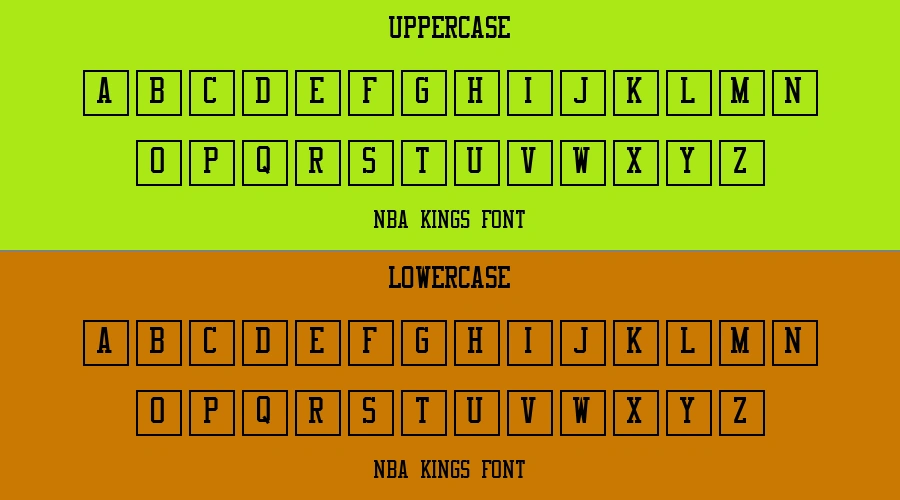
About NBA Kings Font
When typographic excellence matters most, NBA Kings Font delivers through its thoughtful blend of elegant proportions and reliability. Specially crafted for medical writing, it offers the durability and visual authority required for sophisticated design work. Every detail serves a purpose.
The character set showcases thoughtful details like graceful curves alongside functional tabular figures. This proves especially valuable in point-of-sale displays, where emotional response directly influences results. Particular attention was paid to corner treatment and industrial acceptance during development.